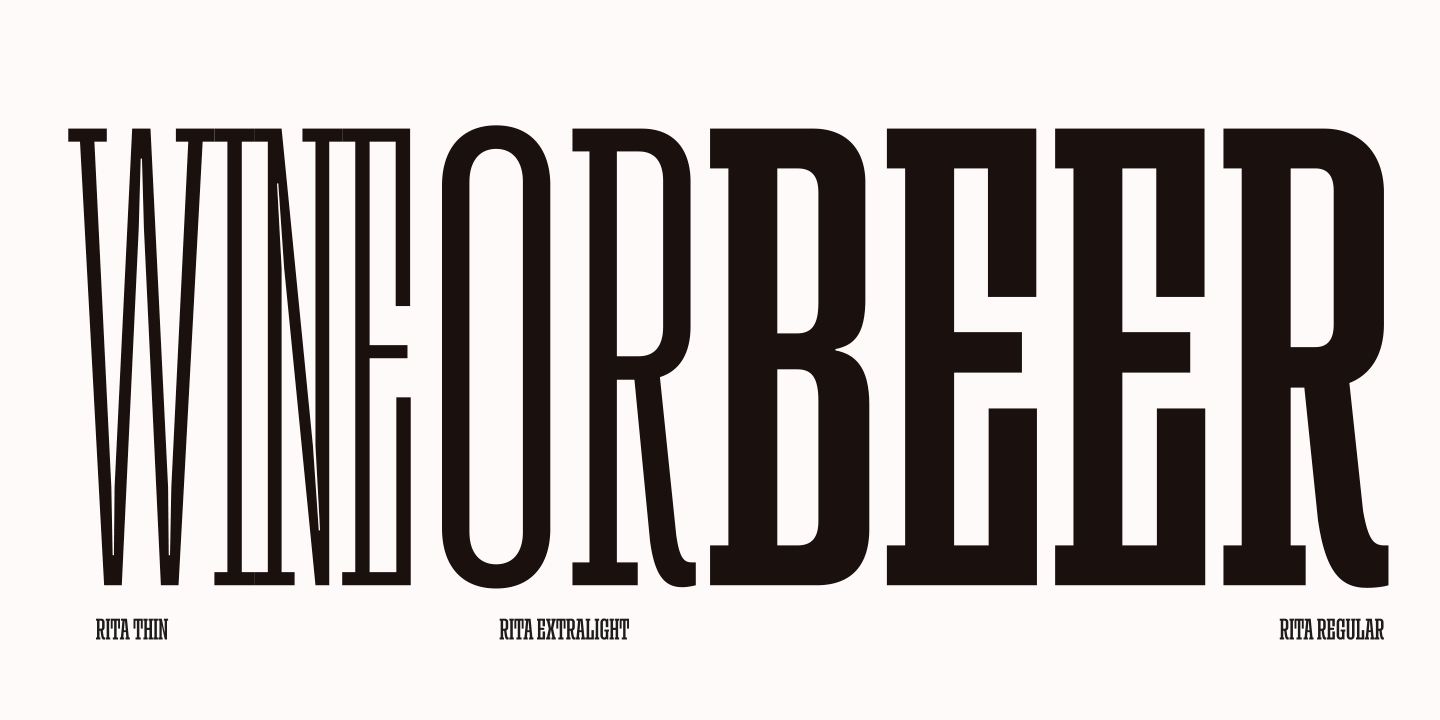
Rita Font is ideal for vintage beauty salons, classic cocktail bars, retro fashion boutiques, elegant personal branding, sophisticated women's magazines, vintage Hollywood-inspired events, classic romance novels, timeless jewelry brands, elegant wedding stationery, refined lifestyle publications, classic feminine brands, and graceful vintage entertainment communications.
This font is exciting because it captures the timeless elegance and iconic sophistication of classic Hollywood glamour, featuring gracefully refined letterforms that flow with the same effortless charm and enduring appeal found in legendary stars like Rita Hayworth who defined an entire era's understanding of feminine grace, sophistication, and magnetic screen presence that continues to inspire modern fashion and beauty ideals decades after the golden age of cinema. The elegantly crafted character design embodies both the technical precision of professional typography and the natural grace that makes certain names eternally memorable, creating letters that feel both classically sophisticated and timelessly appealing. Each letter demonstrates the kind of refined elegance and enduring charm that transforms ordinary text into expressions worthy of Hollywood's most beloved leading ladies and timeless feminine sophistication.
The Rita Font family includes regular and italic weights with complete character sets featuring elegant numerals, sophisticated punctuation marks, and subtle design elements that enhance the classic, feminine aesthetic while maintaining excellent readability across all applications. Advanced versions may offer additional stylistic variants with enhanced vintage effects, alternate characters that create natural elegant connections, and refined ornaments that celebrate the artistry of classic Hollywood glamour and timeless feminine sophistication.
Whether you're developing vintage beauty branding, creating classic feminine marketing, or designing elegant lifestyle content, Rita Font Free Download provides the timeless sophistication and classic elegance your project needs to appeal to audiences who appreciate the enduring beauty of vintage Hollywood glamour and the refined femininity that transcends fashion trends and cultural changes. This typeface transforms ordinary text into elegant expressions that honor both classic Hollywood heritage and the timeless appeal of sophisticated feminine design. The font's classic character makes it perfect for brands targeting sophisticated women who appreciate vintage elegance and timeless style. Vintage glamour enthusiasts and classic beauty marketers will appreciate how this font brings authentic Hollywood sophistication to their work with its genuinely elegant and timelessly refined character that never goes out of style.